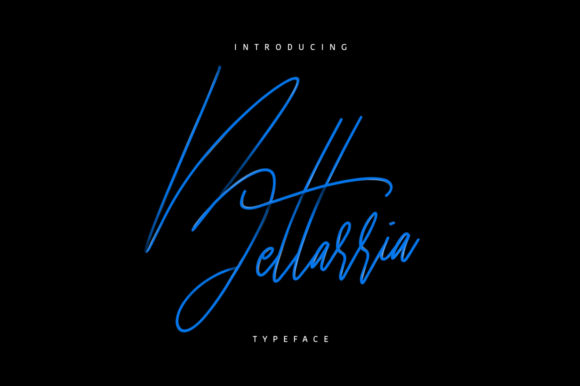
Discover the Glamour of Bettarria Font: A Modern Script for Creative Projects
I’ll never forget the moment I stumbled upon the perfect font for a client’s branding project. I had been searching for hours, trying out different fonts, but none seemed to capture the essence of the brand. That was until I discovered Bettarria Font. With its modern and glamorous feel, it instantly elevated the project and exceeded my client’s expectations. In this article, I’ll share my experience with Bettarria Font, its features, and how to make the most of it in your creative projects.
A Personal Review of Bettarria Font
• ✨ Modern and Glamorous Feel: Bettarria Font has a unique and sophisticated look that makes it perfect for high-end branding, logos, and social media posts.
• ✅ Ease of Use: The font is easy to read and works well in various contexts, from digital media to print materials.
• 💫 Versatility: Bettarria Font comes with a range of OpenType features, glyphs, and stylistic alternates, making it versatile for different design applications.
While Bettarria Font is an excellent choice for many projects, there are a few things to keep in mind:
• ⚠️ Limited Use in Formal Contexts: Due to its modern and glamorous feel, Bettarria Font might not be the best fit for formal or traditional projects, such as academic papers or business reports.
• 🤔 Glyph Limitations: While the font comes with a range of glyphs and stylistic alternates, there might be some limitations when it comes to creating custom ligatures or complex typographic arrangements.
The Story Behind Bettarria Font
Bettarria Font was designed with the goal of creating a modern and glamorous script font that would inspire creatives to produce stunning work. The designer, inspired by the world of fashion and luxury, aimed to craft a font that would evoke feelings of sophistication and elegance.
Q: What is the best use for Bettarria Font?
A: Bettarria Font is perfect for creative projects that require a modern and glamorous touch, such as branding, social media posts, stationery, and more.
Q: Is Bettarria Font suitable for body text?
A: While Bettarria Font is beautiful, it’s best used as a display font or for short paragraphs. Its modern and glamorous feel might not be suitable for long-form body text.